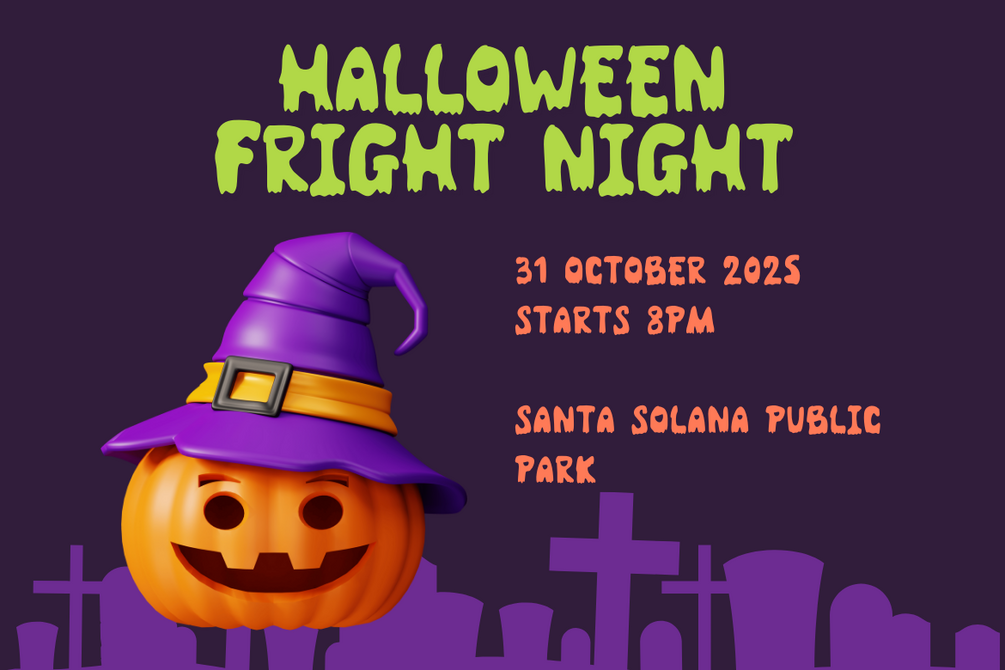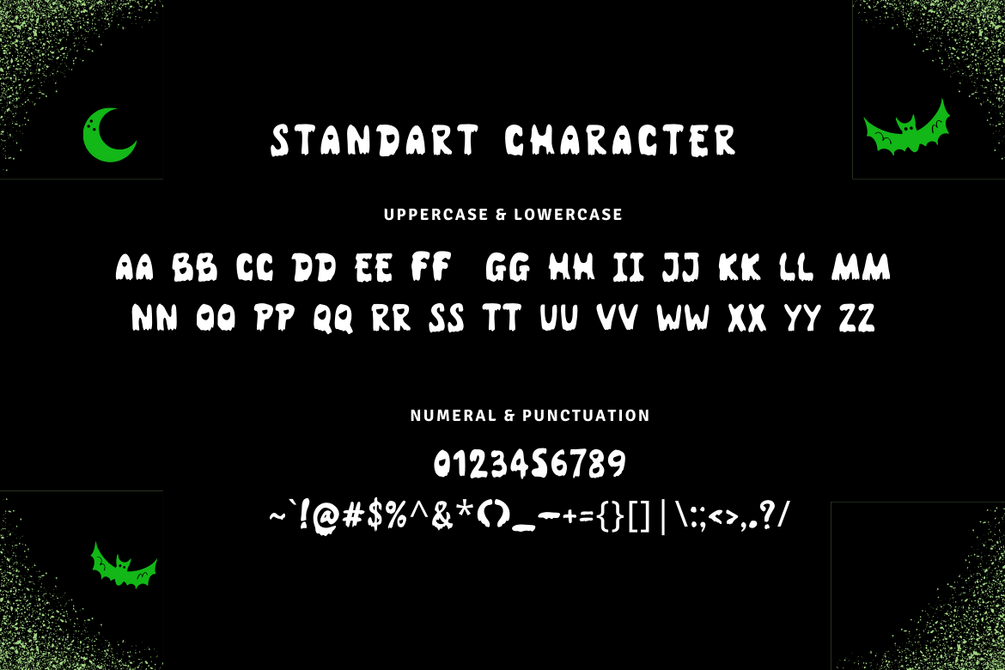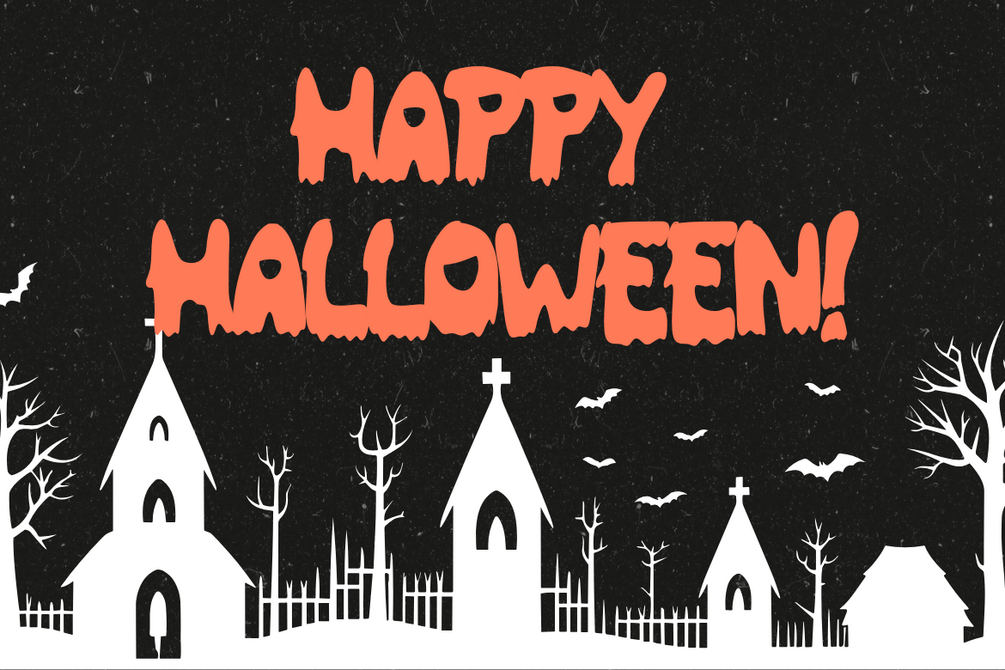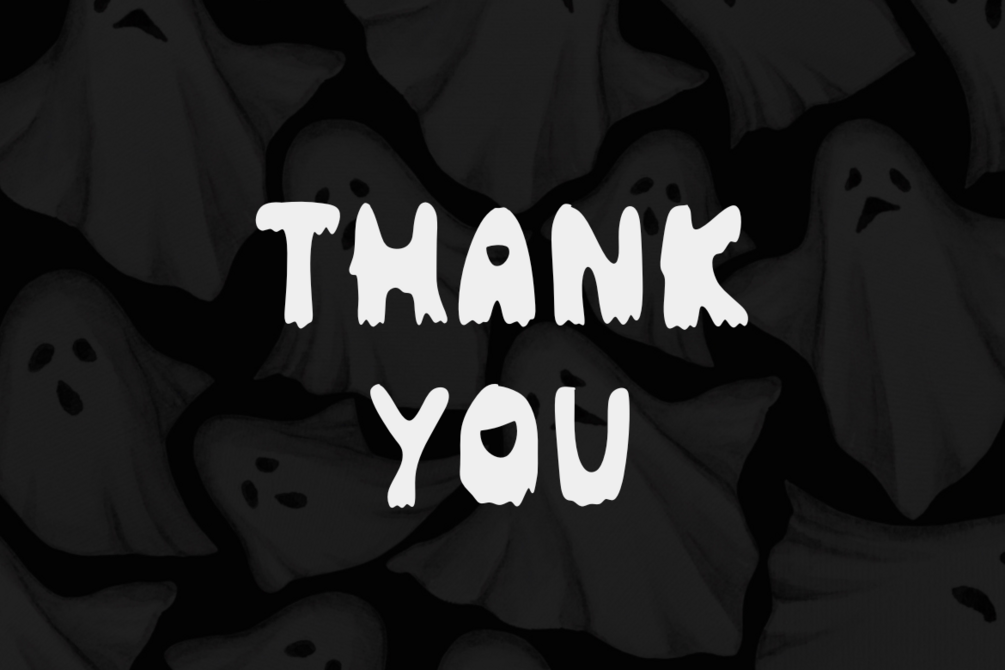
BooBaa - A Halloween Font
BooBaa is a playful, spooky Halloween font designed to bring a fun yet eerie vibe to your creative projects. Perfect for flyers, posters, invitations, and social media graphics, BooBaa's bold and quirky lettering adds a festive touch to any Halloween design.